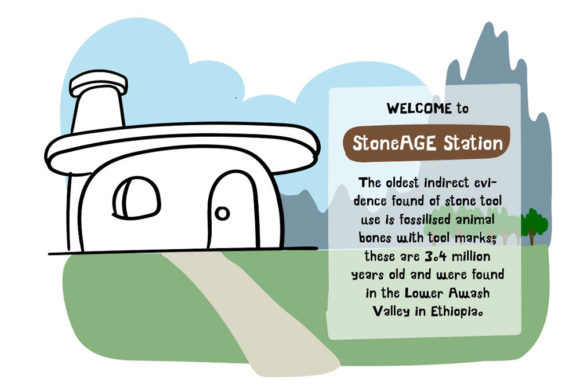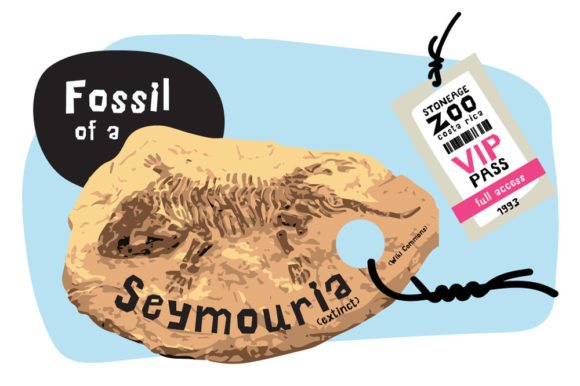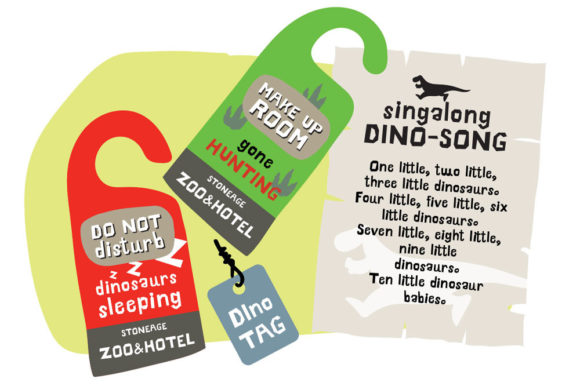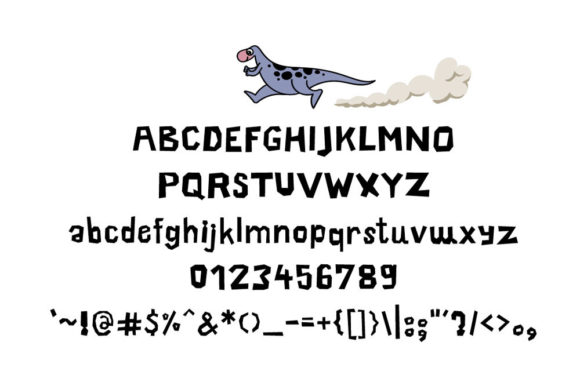
Unleash Your Inner Fossil Hunter
Have you ever stared at a blank canvas, pencil in hand, and felt the urge to create something truly prehistoric? A font that screams ‘Jurassic era’ and demands your attention? For designers and crafters alike, the Fossisaurs Font is here to transport you back in time.
This unique display font takes inspiration from the stone age and dinosaur designs, promising to unleash your inner fossil hunter. With its bold, rugged lines and earthy feel, the Fossisaurs Font is perfect for creating authentic, prehistoric-inspired crafts. Whether you’re designing a t-shirt, a poster, or a handmade card, this font will add a touch of primordial magic to your work.
- Font Family: Fossisaurs Font is a unique, hand-drawn font family designed to resemble fossils.
- Size: The font family includes a range of weights from Light to Extra Bold, offering flexibility for different design needs.
- Unique Characteristics: Fossisaurs Font features intricate, hand-drawn details and subtle texture, giving it a distinctive, organic feel.
Fossisaurs Font Review
I recently had the chance to work with the Fossisaurs font, and I have to say it’s a unique and interesting choice. Here are my thoughts on what works well and what doesn’t.
- Unique design: Fossisaurs font has a distinctive prehistoric feel that can add a lot of character to a design. It’s perfect for projects that need a bit of a vintage or retro vibe.
- Good legibility: Despite its quirky design, Fossisaurs is surprisingly easy to read, even at smaller font sizes.
- Wide language support: The font supports a wide range of languages, making it a great choice for international projects.
- Not ideal for body text: While Fossisaurs is readable, it’s not the most comfortable font to read for large blocks of text. It’s better suited for headlines or titles.
- Limited versatility: The font’s unique design can be a bit too much for some projects, and it may not be the best choice for more modern or minimalist designs.
Fossisaurs font is a solid choice for designers who want to add a bit of personality to their projects. While it may not be the best fit for every project, it’s a great option for those who want to stand out from the crowd. With a bit of restraint, Fossisaurs can be a powerful tool in a designer’s toolkit.
Common use cases for Fossisaurs Font include:
1. Retro-style graphics and designs.
2. Science fiction and fantasy-themed projects.
3. Educational materials and textbooks.
Alternatives to Fossisaurs Font
Playfair Display is a luxurious and elegant serif font, ideal for high-end designs, luxury brands, and sophisticated projects. It’s perfect for creating a sense of sophistication and refinement.
Comparison to Fossisaurs Font: While Fossisaurs Font has a unique, natural look, Playfair Display offers a more polished and refined appearance. Playfair Display is better suited for formal and elegant designs, whereas Fossisaurs Font is more versatile and can work well in a variety of settings.
Carolyna Pro is a modern, elegant serif font with a touch of sophistication. It’s ideal for designs that require a sense of refinement and luxury, such as high-end branding, packaging, and editorial projects.
Comparison to Fossisaurs Font: Carolyna Pro shares some similarities with Fossisaurs Font in terms of elegance and sophistication, but it has a more modern and refined feel. Carolyna Pro is better suited for designs that require a sense of luxury and refinement, whereas Fossisaurs Font is more versatile and can work well in a variety of settings.